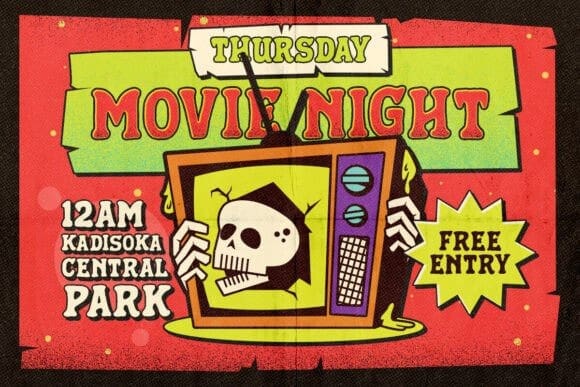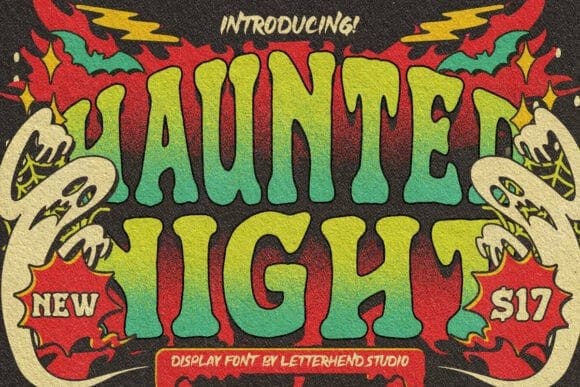
Haunted Night Font
Haunted Night Font is a bold display font with classic letterforms. This font is perfectly made to be applied especially in logos, and other various formal forms such as invitations, labels, logos, magazines, books, greeting/wedding cards, packaging, fashion, makeup, stationery, novels, labels, or any type of advertising purpose.